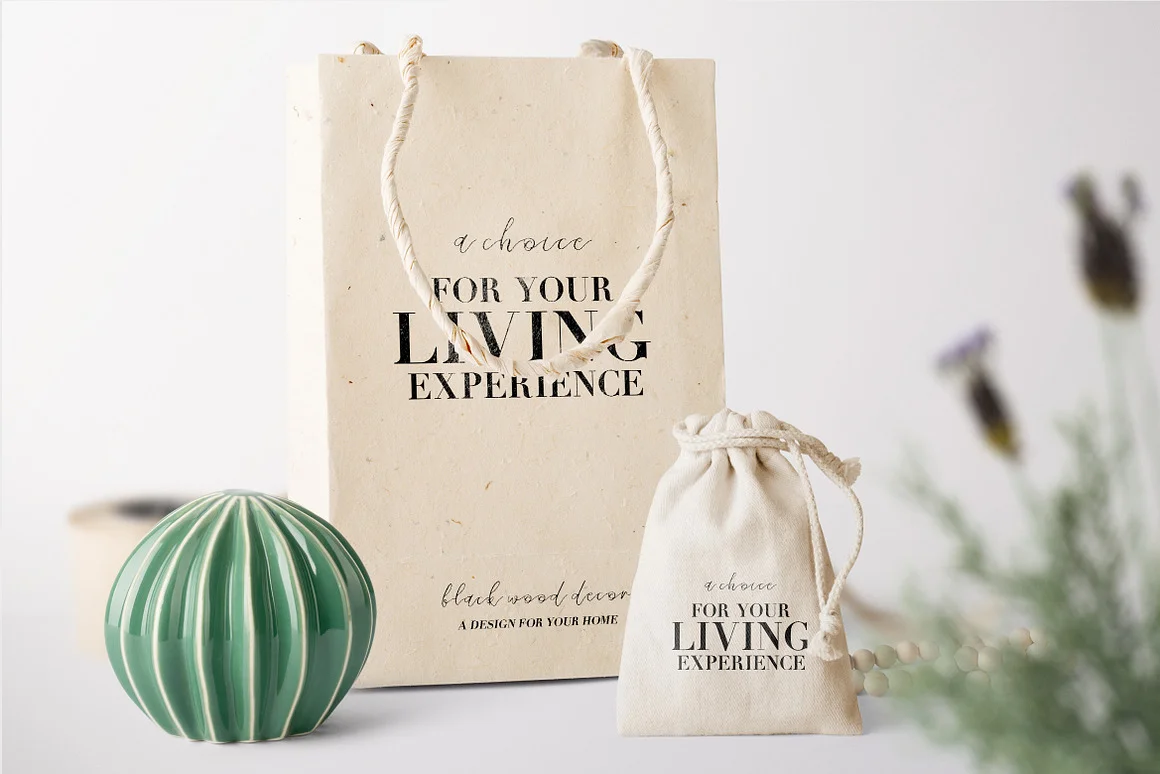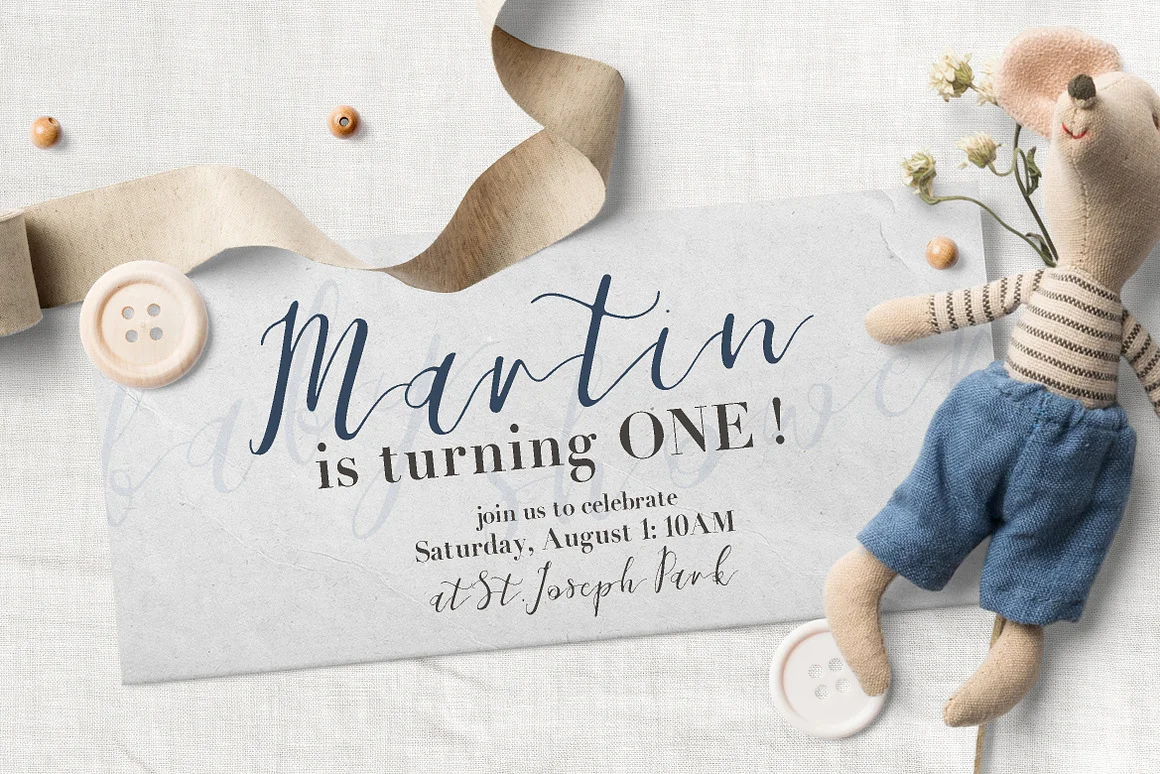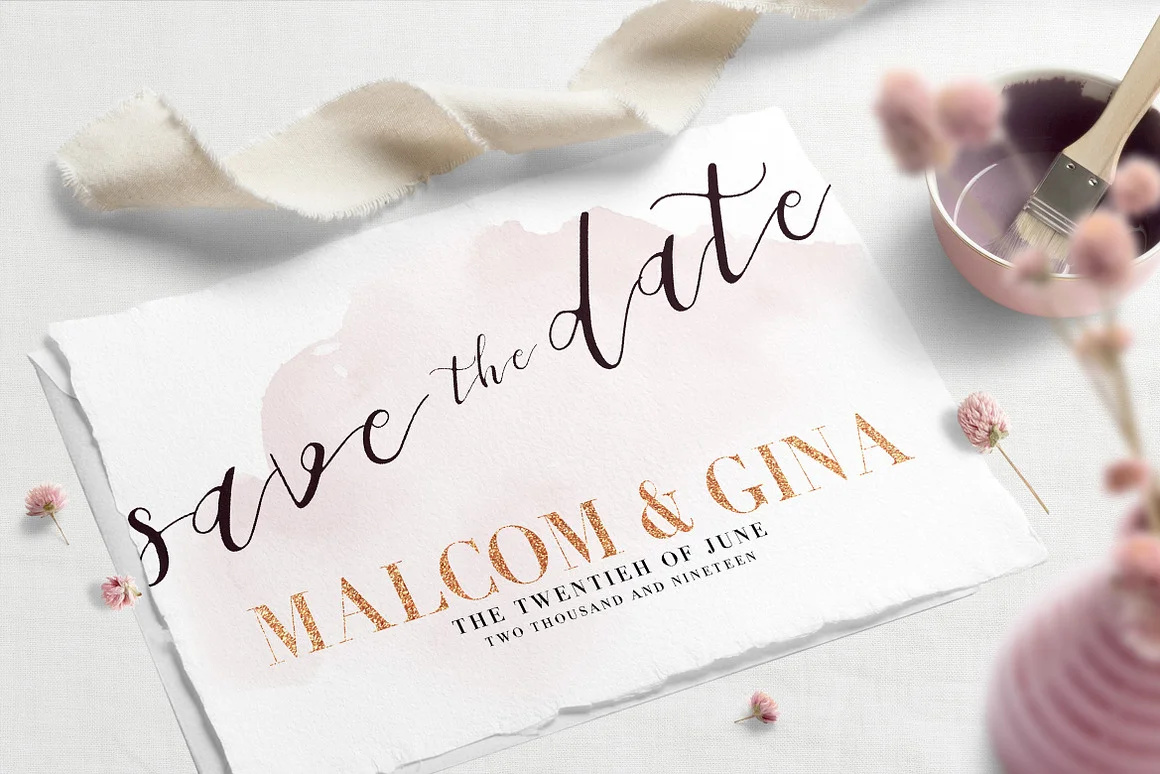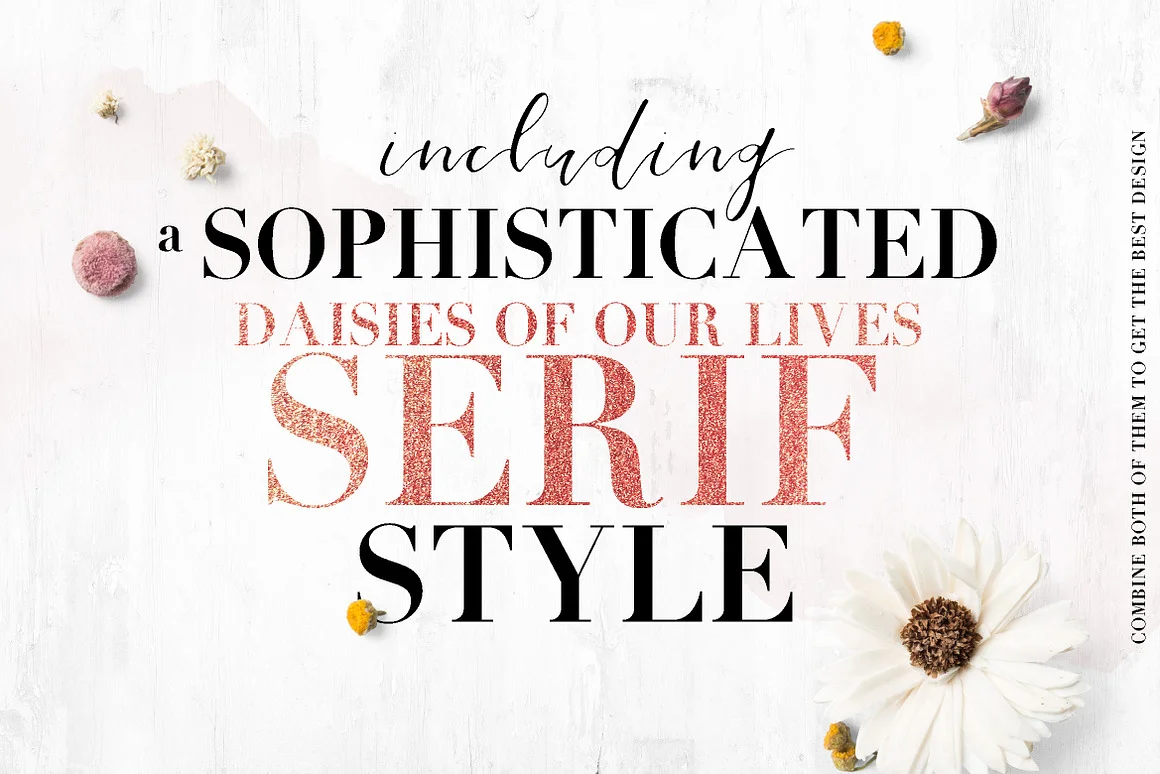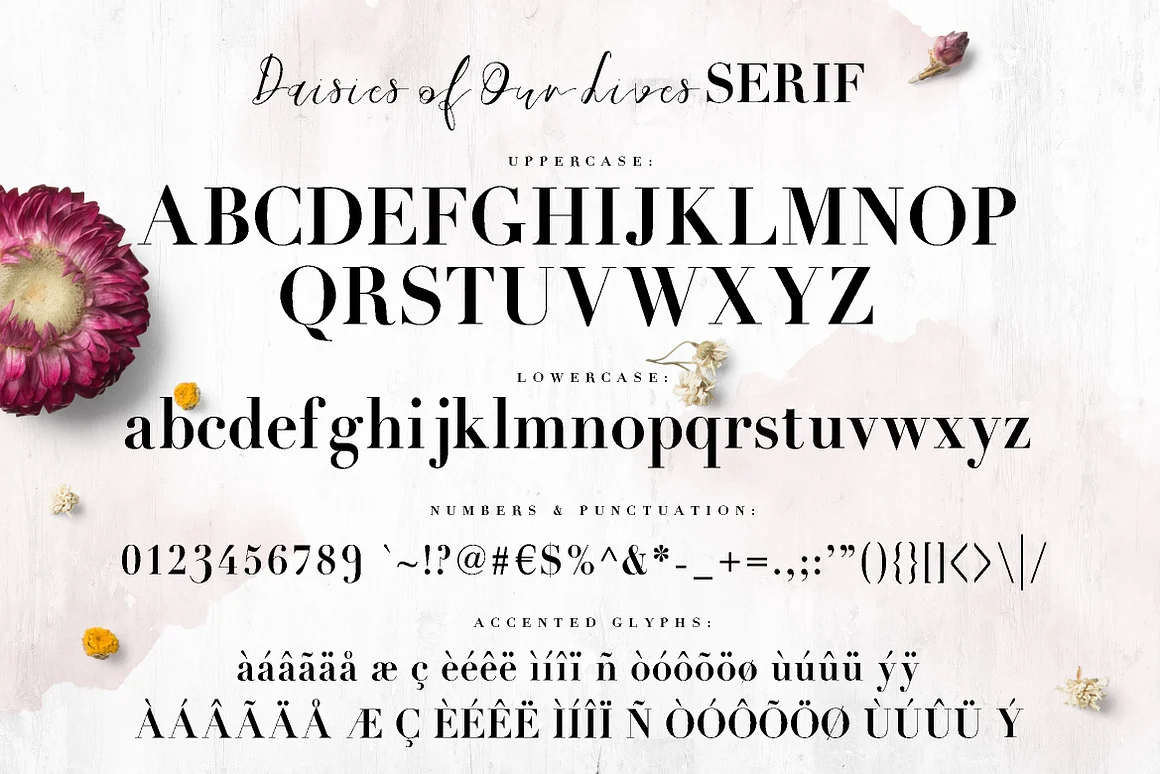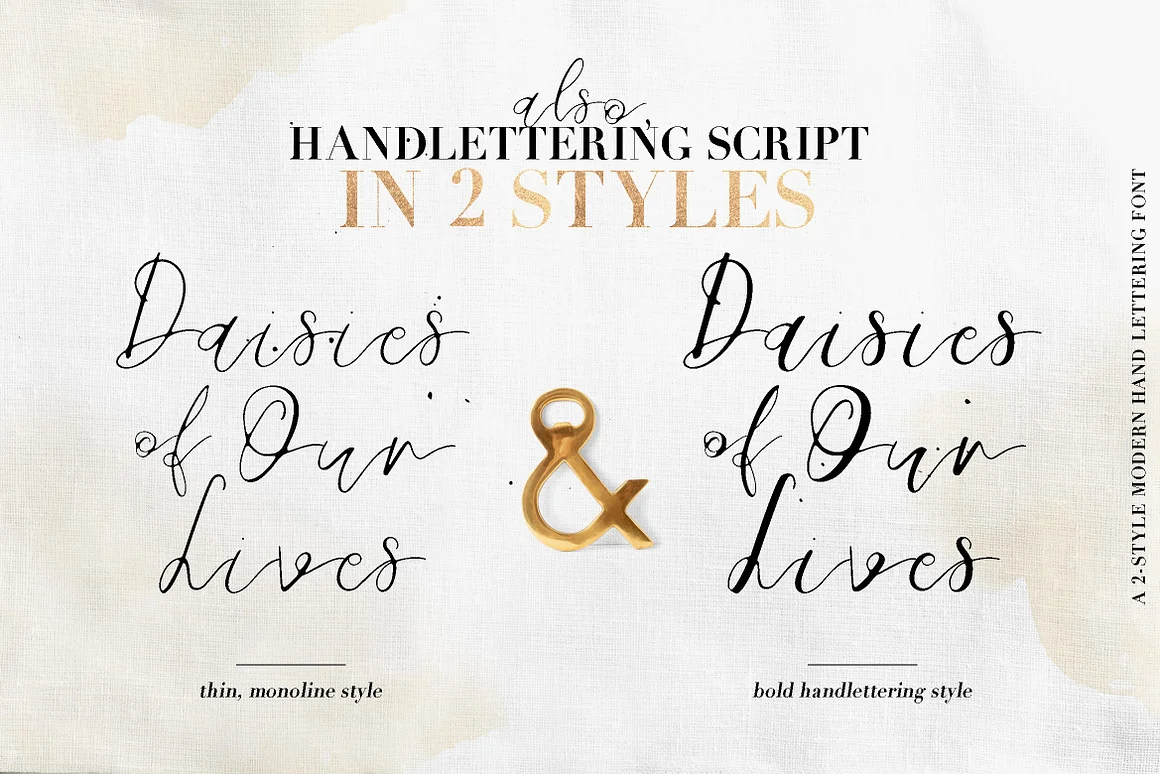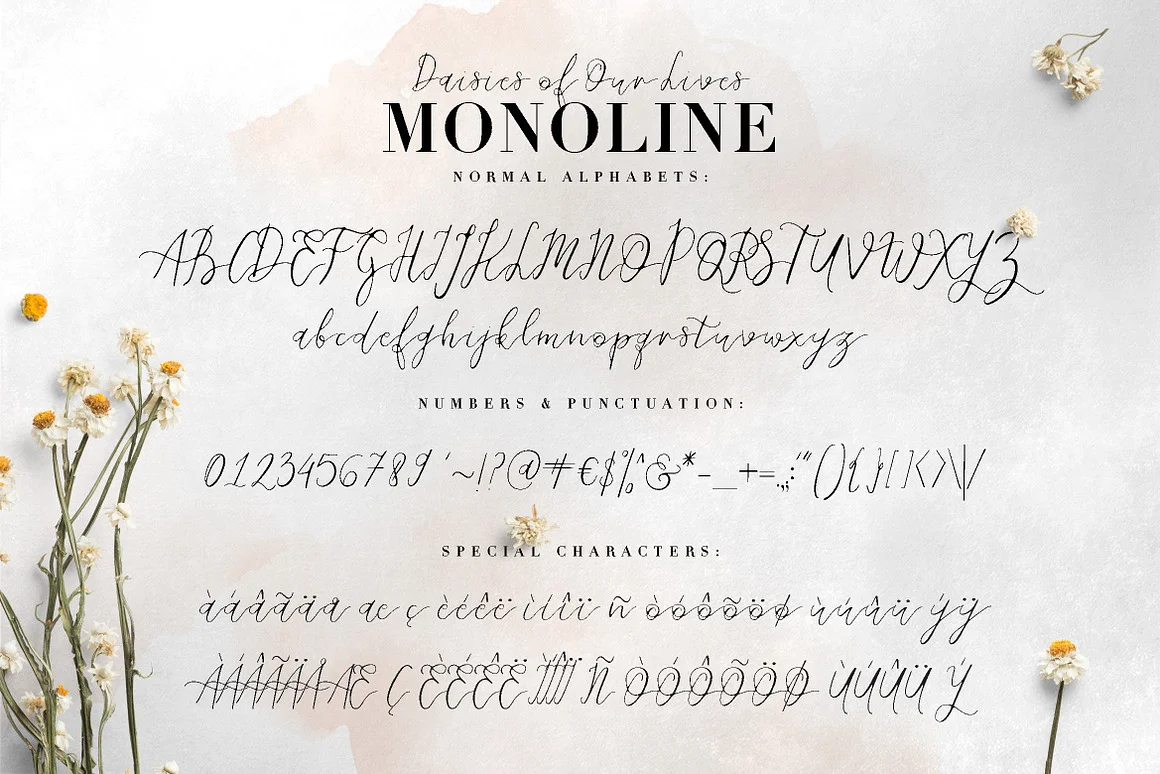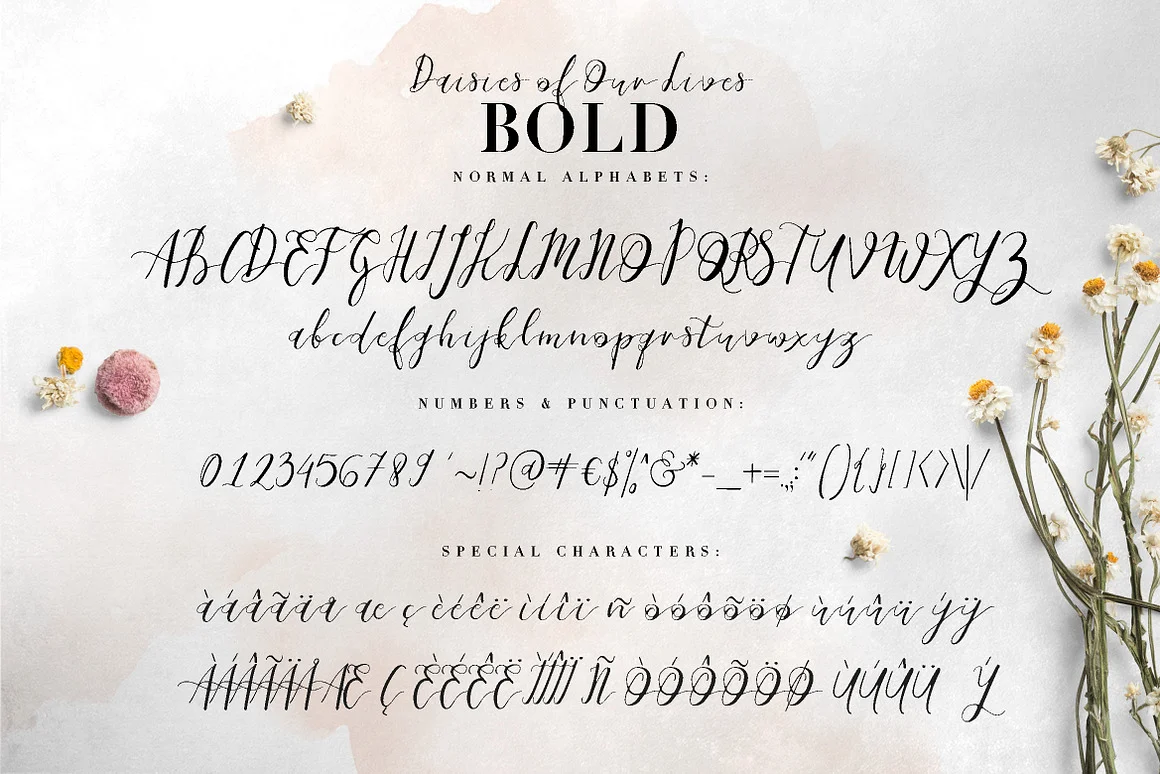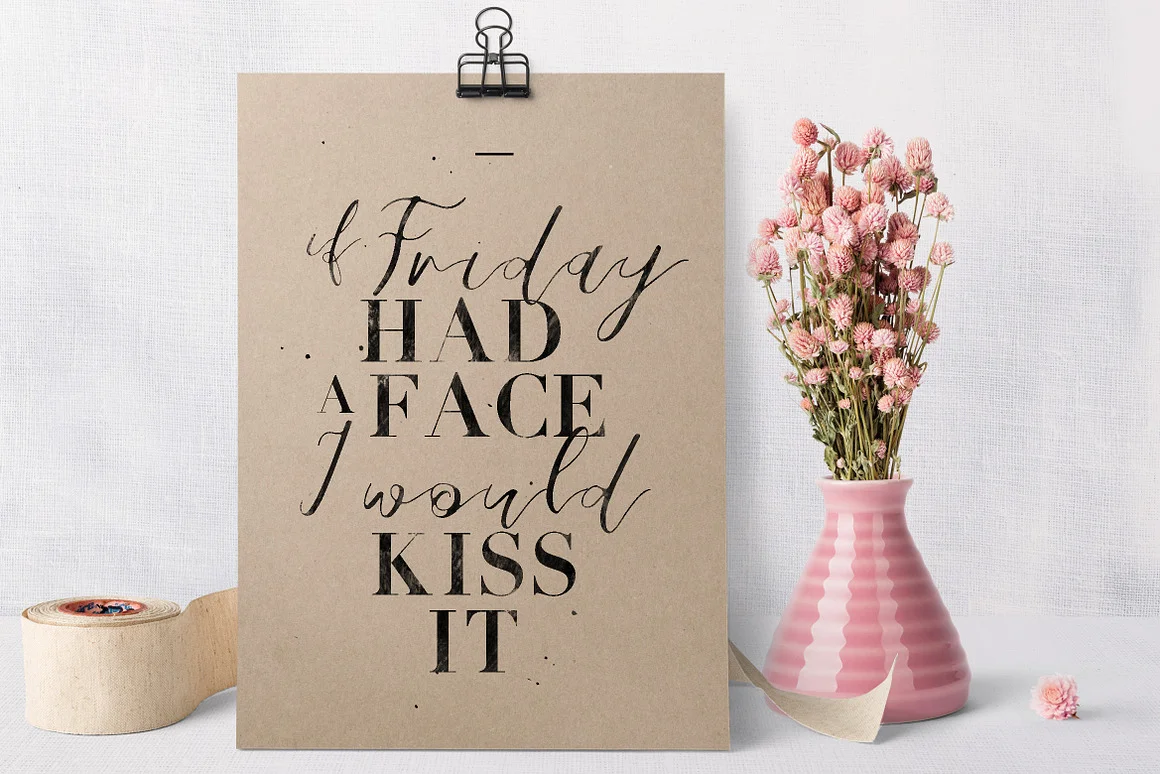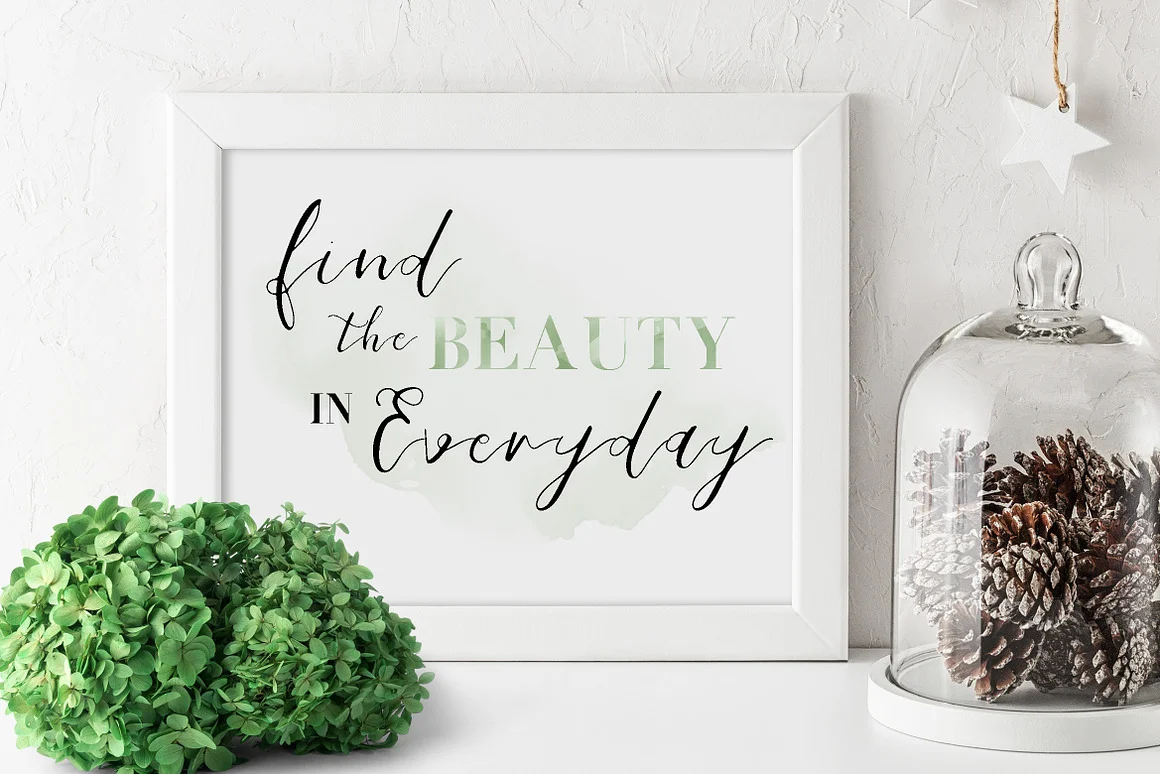
Daisies of Our Lives Font
Daisies of Our Lives Font is perfect for nature-inspired branding, organic product packaging, children's book design, eco-friendly marketing materials, garden center branding, wholesome food labels, springtime event invitations, natural beauty products, cheerful greeting cards, and heartwarming lifestyle communications.
What makes Daisies of Our Lives Font so exciting is its innocent charm that captures the pure joy and natural beauty of simple life pleasures with authentic warmth and genuine personality. This delightful typeface embodies wholesome optimism and gentle happiness, delivering typography that instantly connects with audiences seeking authentic joy and natural beauty.
The Daisies of Our Lives Font family includes regular and bold weights, featuring playful flourishes, natural variations, cheerful ligatures, and whimsical design elements that provide designers with comprehensive tools for creating heartwarming and memorable typography that celebrates life's simple pleasures.
Discover pure happiness with Daisies of Our Lives Font, a beautifully crafted typeface that brings the innocent joy and natural charm of life's simple pleasures to contemporary design projects. This exceptional font embodies the perfect fusion of wholesome authenticity and professional quality, making it an ideal choice for brands that celebrate natural beauty and genuine happiness.
The naturally charming letterforms of Daisies of Our Lives Font showcase innocent elegance with wholesome character that creates instant emotional connection and memorable brand personality. Each character displays careful attention to maintaining the pure joy that defines natural beauty while ensuring contemporary readability and versatile application. The font's gentle curves and cheerful spacing contribute to its heartwarming appearance and optimistic appeal.
Natural brands and family-oriented businesses consistently choose Daisies of Our Lives Font for projects requiring wholesome authenticity and cheerful sophistication. The comprehensive character set includes uppercase and lowercase letters, numerals, extensive punctuation, international accents, and cheerful decorative elements that provide complete support for natural branding applications and heartwarming communication designs.
The timeless joy of Daisies of Our Lives Font ensures exceptional performance across both traditional print and modern digital platforms. Whether developing natural brand identities, creating wholesome marketing materials, or designing cheerful family-friendly content, this remarkable typeface delivers consistent warmth that resonates with audiences seeking authentic happiness and natural beauty.
Transform your most heartwarming projects with Daisies of Our Lives Font. This extraordinary typeface brings innocent joy and natural sophistication to typography, making it the essential choice for designers who create experiences that celebrate the pure beauty and genuine happiness found in life's simplest and most precious moments.